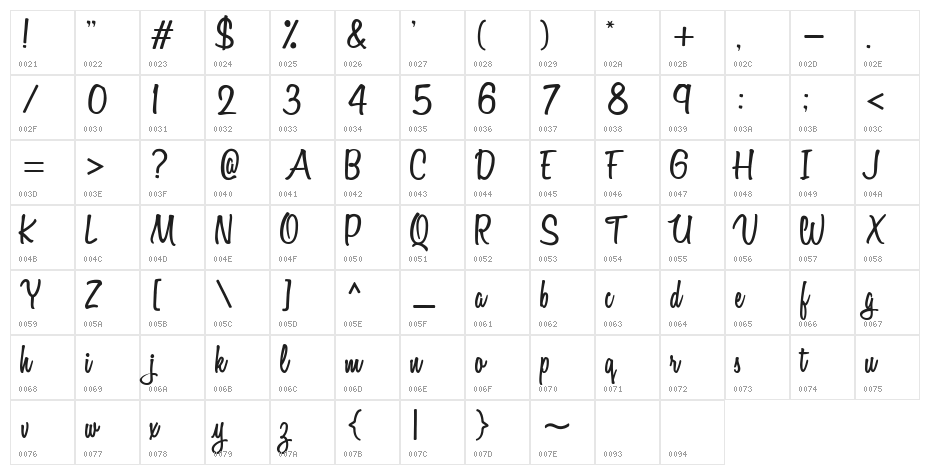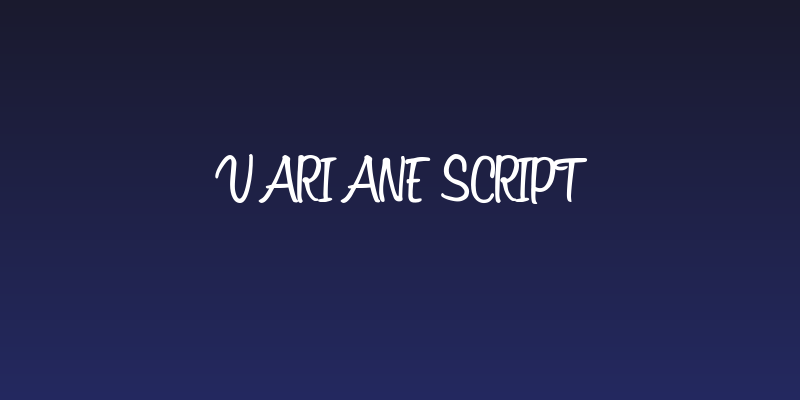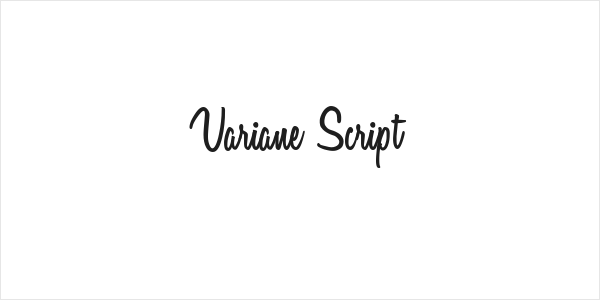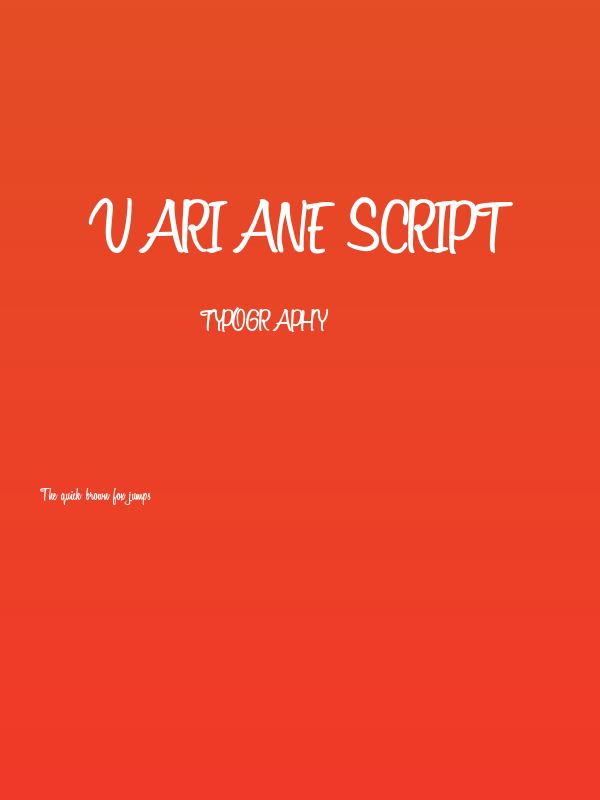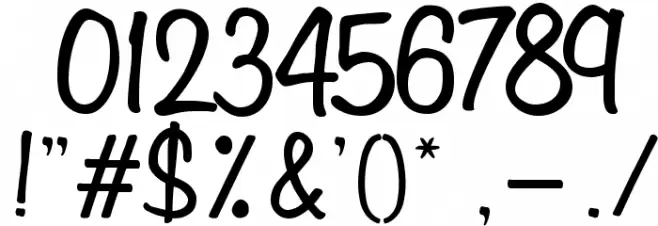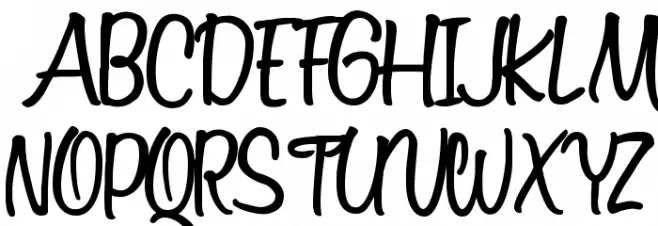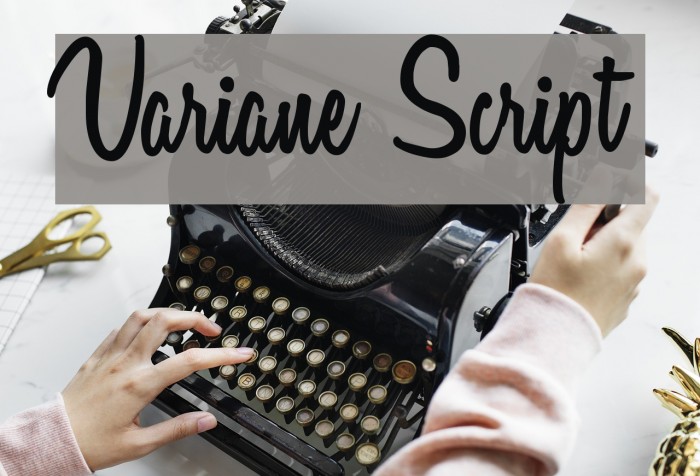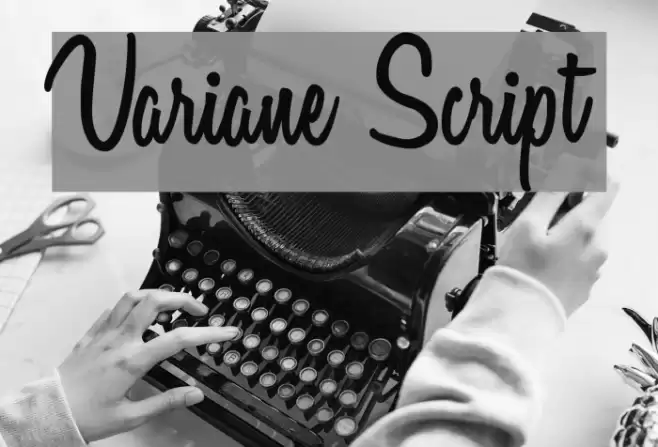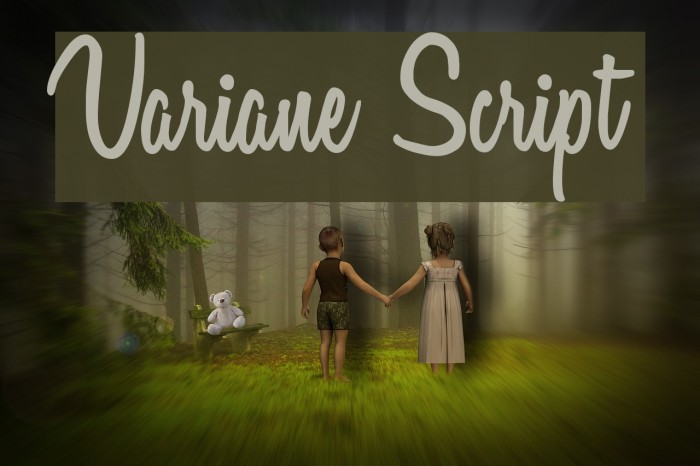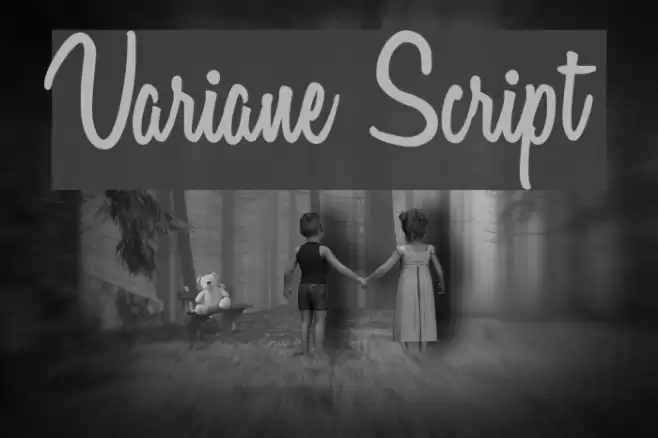
Variane Script Font
Variane Script Description
This font features a lively and flowing script style, characterized by its smooth, cursive strokes and elegant loops. The uppercase letters are bold and prominent, with a playful yet sophisticated flair, while the lowercase letters maintain a consistent fluidity, enhancing the overall aesthetic. The numerals are clear and well-defined, complementing the script style with a touch of modernity. Special characters are thoughtfully designed to match the font's whimsical nature, making it versatile for various creative applications. The overall impression is one of elegance and charm, suitable for projects that require a personal and artistic touch.
| Use Case | Logos, Invitations, Artistic projects |
| Proposed Projects | Ideal for wedding invitations, greeting cards, branding, and artistic projects. |